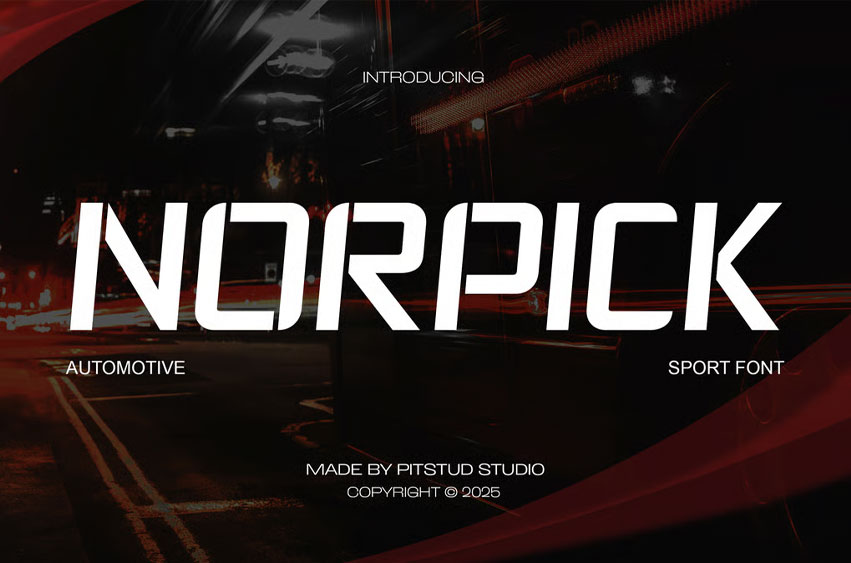
Norpick Font Automotive Sport is a bold and dynamic display font crafted for speed, power, and modern aesthetics. With its sleek lines, futuristic cuts, and sharp geometry, Norpick captures the essence of racing energy and automotive style, making it perfect for projects that demand strength, performance, and a cutting-edge look.
Whether you’re designing a racing event poster, automotive branding, or sportswear logo, Norpick provides the perfect balance of bold readability and high-impact visual appeal. Its modern style makes it ideal for advertising, packaging, digital media, and merchandise designs that thrive on motion and adrenaline.
- Sport-Inspired Design: Strong, angular shapes with a sleek futuristic edge.
- Complete Character Set: Uppercase, lowercase, numbers, punctuation, and symbols.
- OpenType Features: Alternates, ligatures, stylistic sets.
- Multilingual Support: Compatible with multiple languages for global use.
Norpick blends modern sportsmanship with automotive strength, delivering a font that’s both stylish and versatile. Whether used in branding, editorial layouts, or high-energy campaigns, Norpick ensures your designs stay bold, fast, and unforgettable.
- Sports Branding: Amplify energy and strength in logos.
- Automotive Design: Perfect for racing teams, car shows, and industry branding.
- Advertising & Marketing: Create striking campaigns with a performance-driven look.
- Apparel & Merchandise: Elevate sportswear and automotive gear.
- Digital Media: Strong headers and standout visuals for websites and social media.